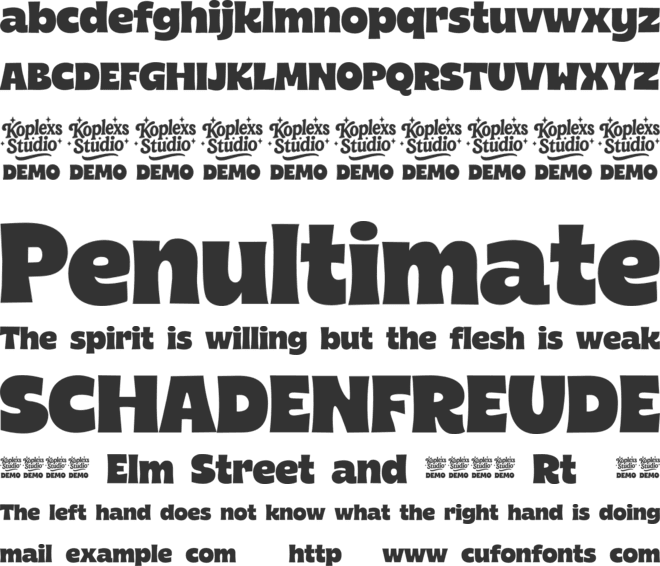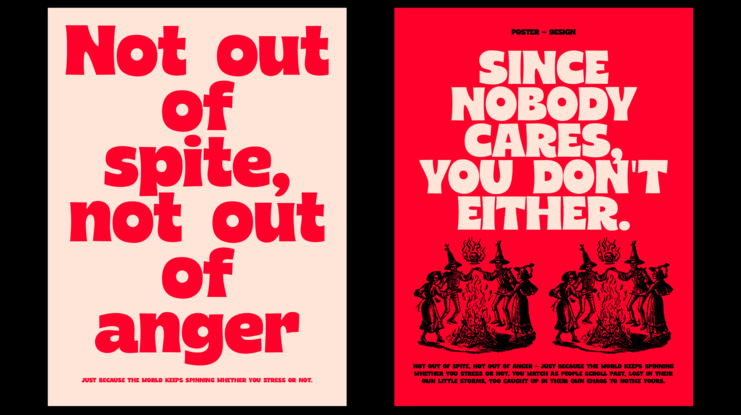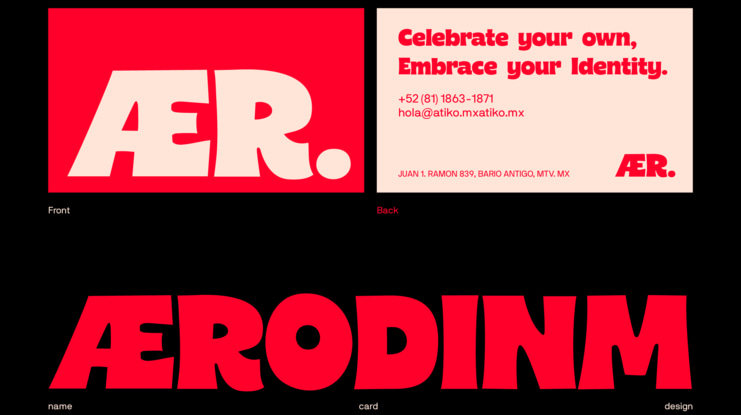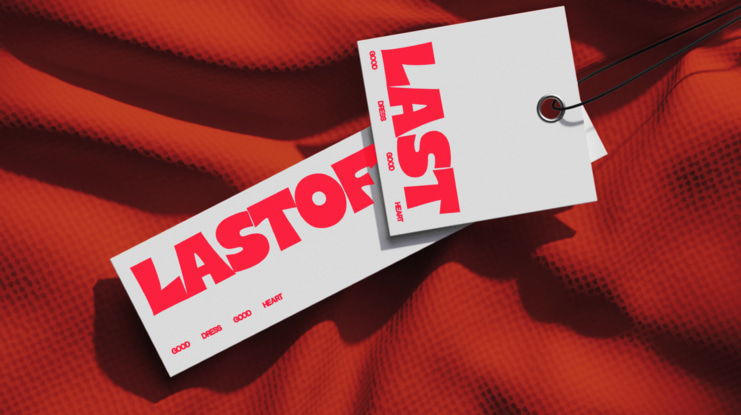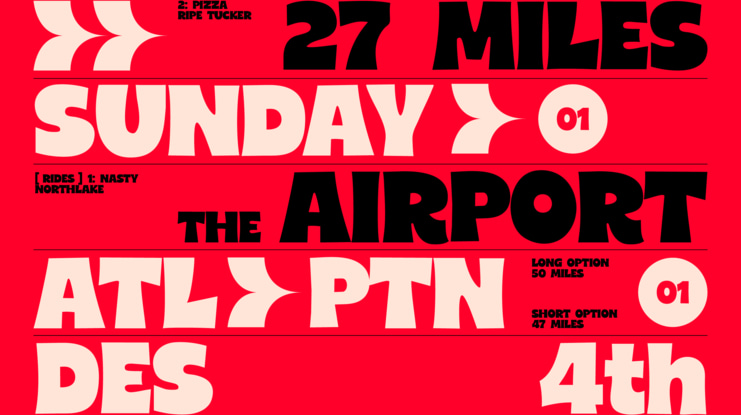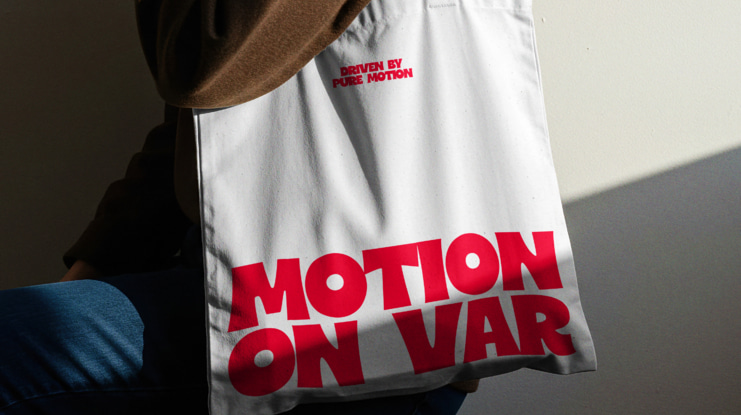
Carity Font is a bold modern display typeface crafted with chunky, playful curves that instantly grab attention. Designed for projects that demand a strong visual presence, it brings unique personality to branding, posters, logos, packaging, editorials, and digital content. Every letter is built with dynamic proportions, offering a modern and expressive look that works beautifully across both print and screen.
Perfect for designers, agencies, brand owners, and content creators, Carity Font delivers eye-catching typography that elevates any creative work. Whether used for large headlines, marketing campaigns, or premium design compositions, this typeface brings a professional and memorable touch. Download Carity today and enhance your designs with bold, standout character.